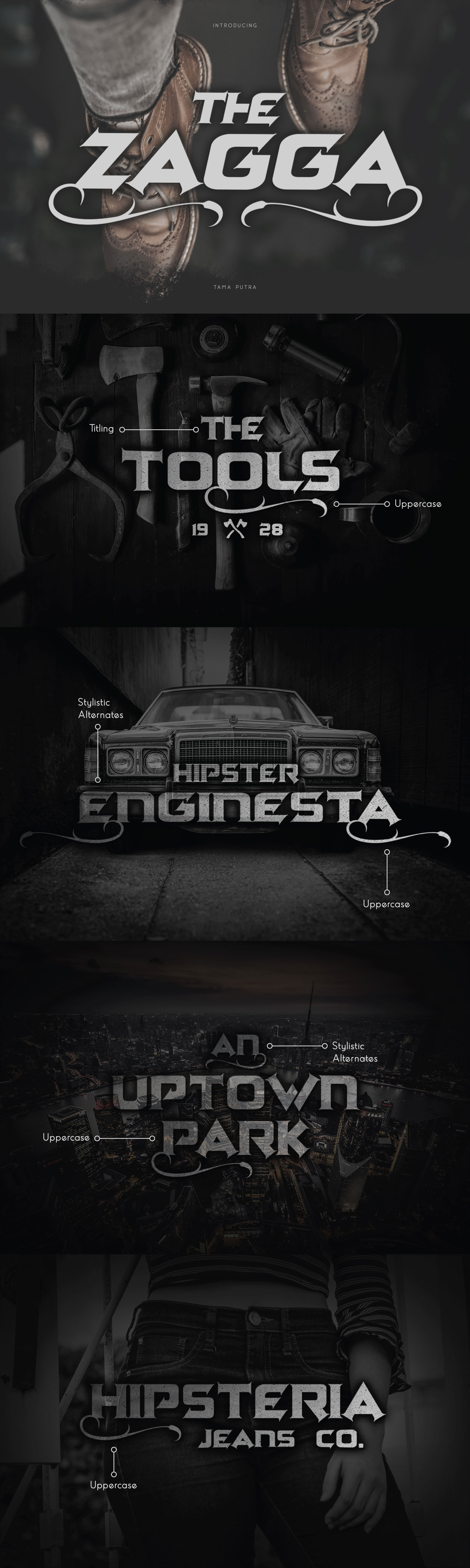
Zagga Decorative Typeface
Zagga Typeface
Zagga is a decorative typeface. It includes multi-lingual and currency support, numerals, and punctuations.
- Character Set A-Z (Uppercase & Lowercase)
- Titling
This typeface can be put to many uses:
- Poster
- Banner Design
- T-shirt
- Another end products
Zagga typeface is suitable font for creating beautiful things and many creative work.